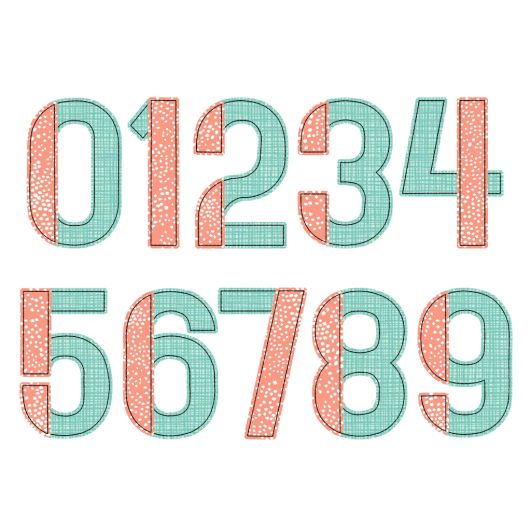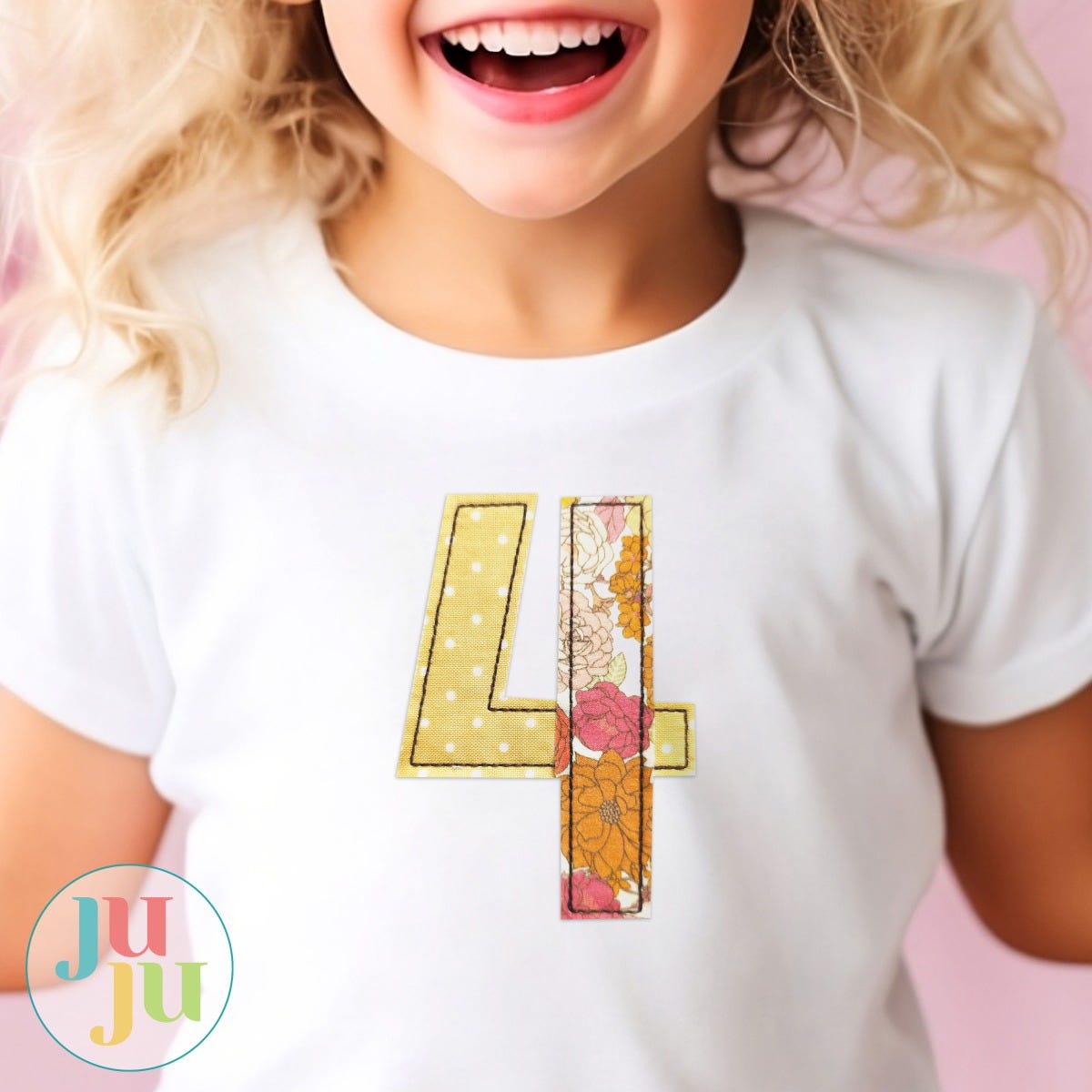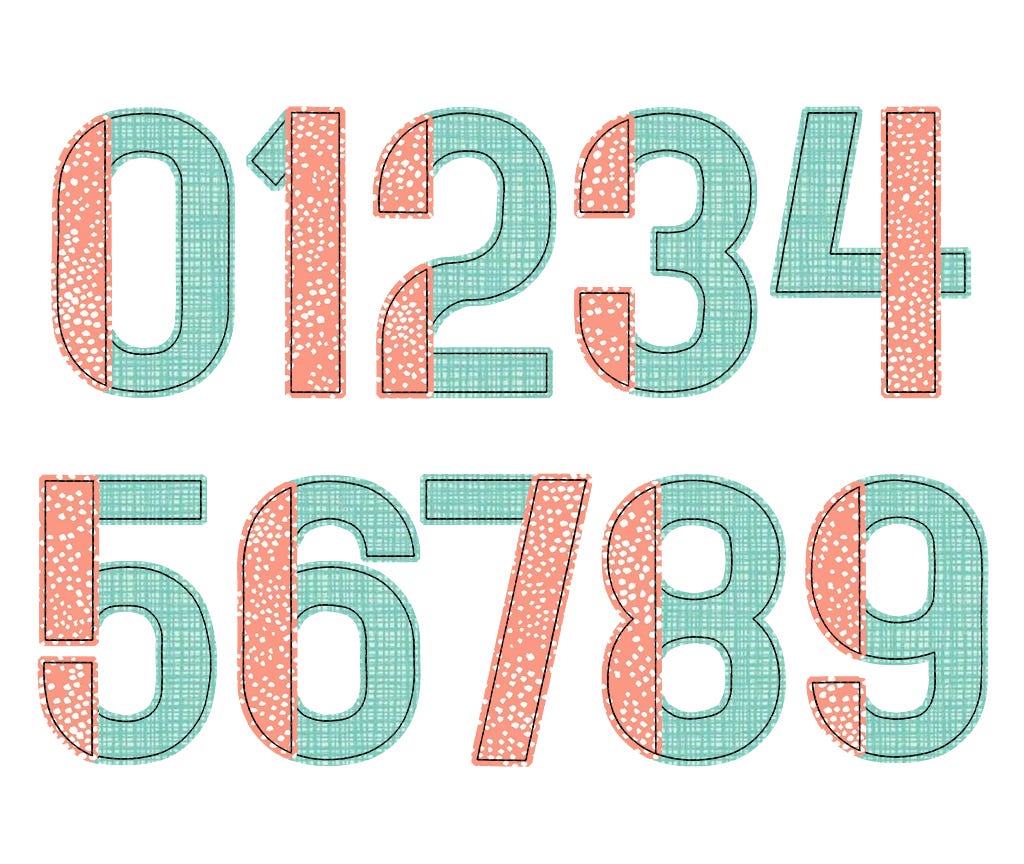
Two Color Block Bean Stitch Applique Embroidery Numbers
Two Color Block Bean Stitch Applique Numbers Set includes numbers 0-9 in 8 sizes (2.5-inch, 3-inch, 3.5-inch, 4- inch, 4.5-inch, 5-inch, 5.5-inch and 6-inch).
For maximum stitch efficiency, each design file has only four colorstops: a single running stitch placement step, and bean stitch step that serves as both the tackdown and finishing stitch for both fabrics. We recommend using a fusible product on the applique fabric and neatly trimming 1/8" outside the bean stitch for a polished look. (Alternative idea: layer with flannel, trim with a generous seam allowance and rough up the edges for a raggy look.)